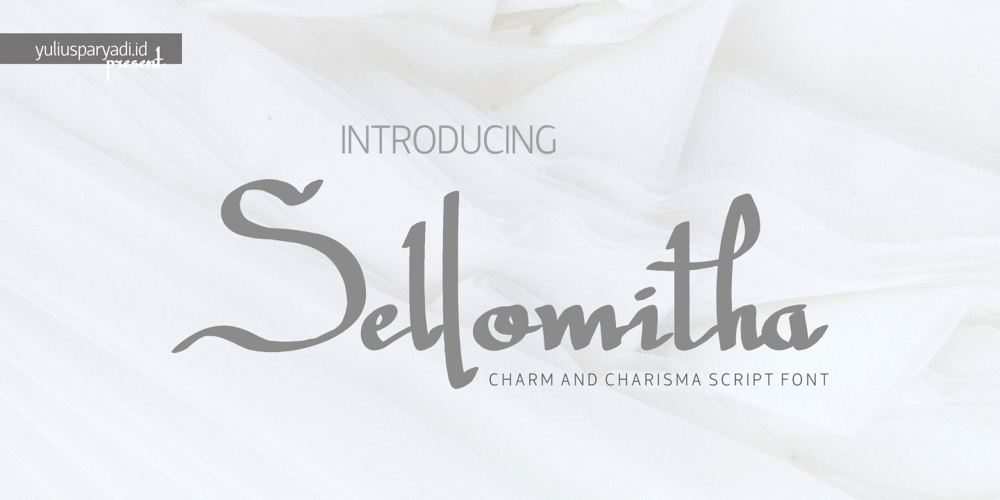
Sellomitha
Sellomitha font
Sellomitha Font Family was designed by Yulius Paryadi and published by YuliusParyadi. Sellomitha contains 1 styles and family package options. Sellomitha (Handwritten/Script) is made according to its name which symbolizes charm and charisma. She is glamorous and wants to be the center of attention.This font is readable, catchy, and easy to use. This font is suitable for quotes, logo designs, magazines, business cards, and many other design projects. Sellomitha is includes:- full set uppercase and lowercase letter;- numerals;- multilingual support;- large number of punctuations;- more than 30 ligatures, and swash. Please add this font as your favourite hit like button, or follow me. I’ll very happy for that and appreciated it.